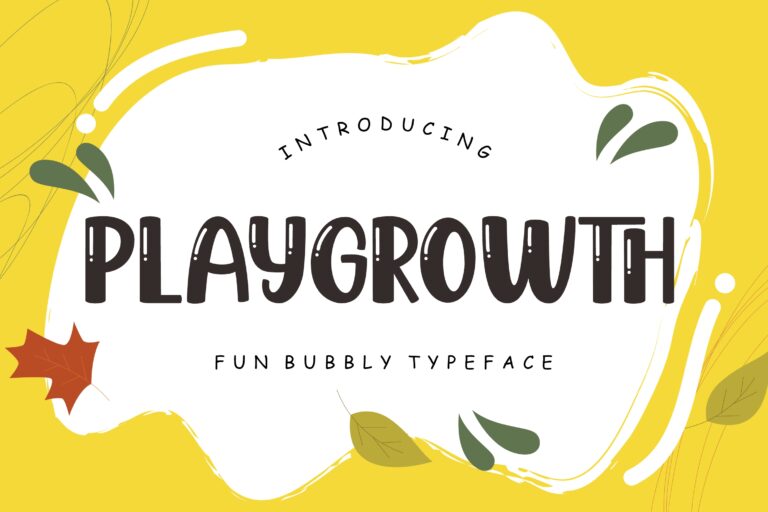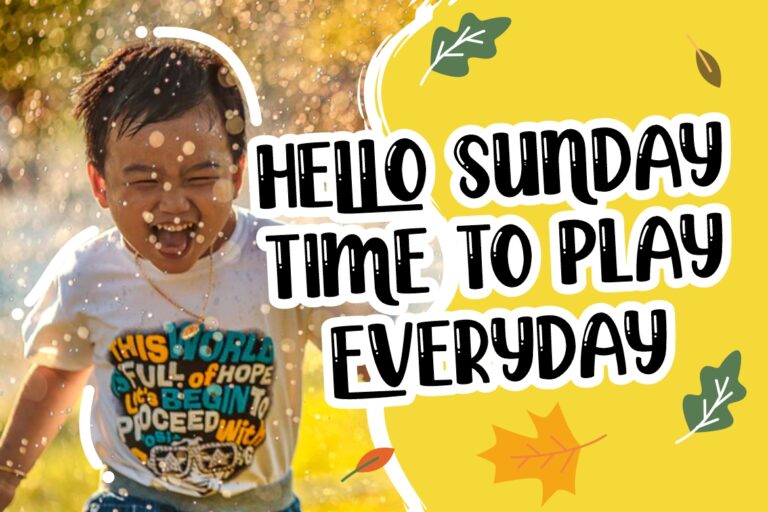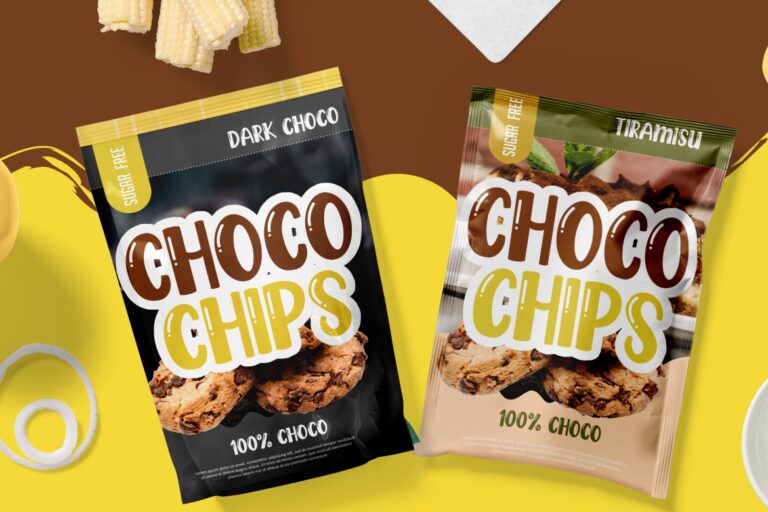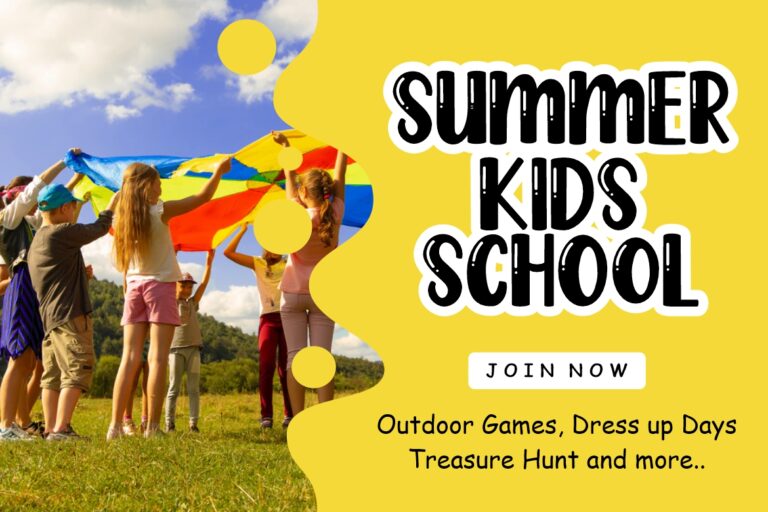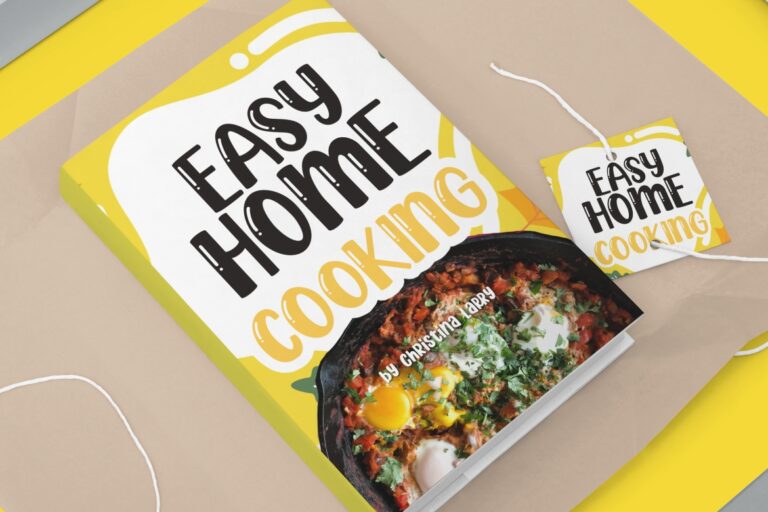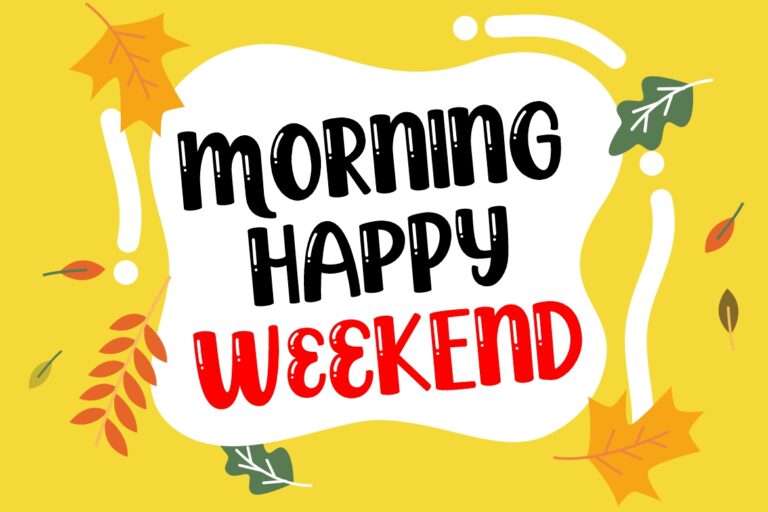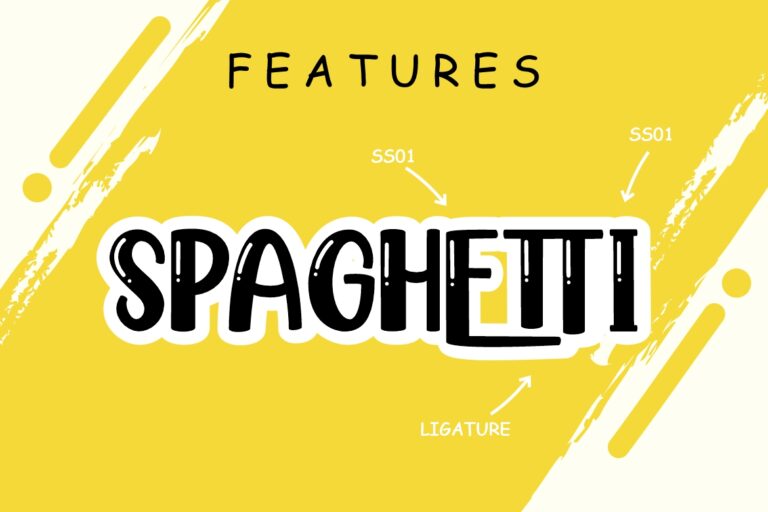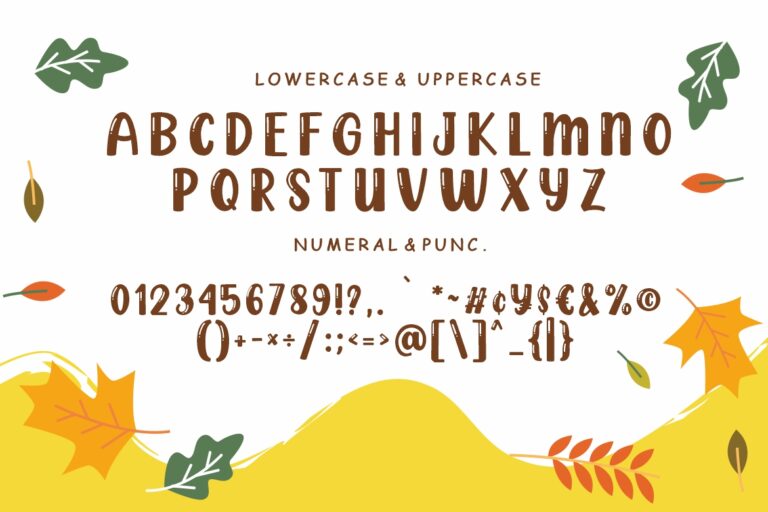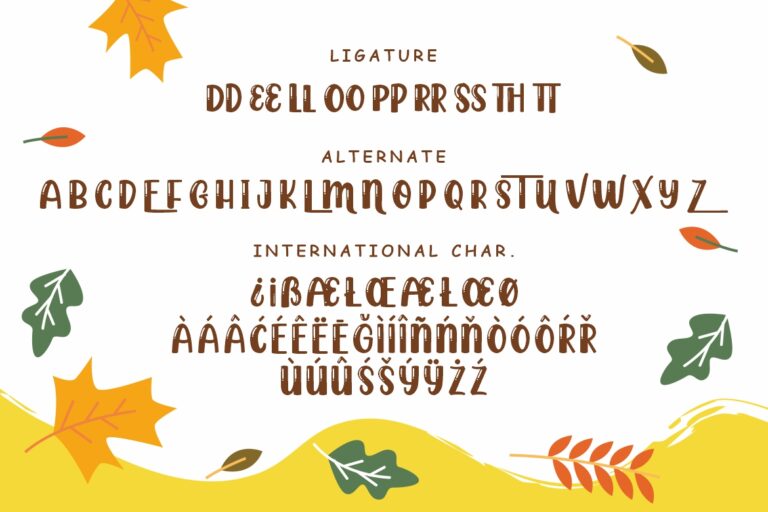
Playgrowth Fun Display
Playgrowth – a new modern fun bubbly display font make this font looks bold and joyful perfect for any children event.
Playgrowth would perfect for photography, watermark, social media posts, advertisements, logos & branding, invitation, product designs, label, stationery, wedding designs, product packaging, special events or anything that need handwriting taste.
- Ton of glyphs (include Uppercase, Lowercase, Numerals & Punctuations, Ligature, Alternate)
- Ligature, Alternate
- Fonts include multilingual support for; Afrikaans, Albanian, Czech, Danish, Dutch, English, Estonian, Finnish, French, German, Hungarian, Italian, Latvian, Lithuanian, Norwegian, Polish, Portugese, Slovak, Slovenian, Spanisch, Swedish.